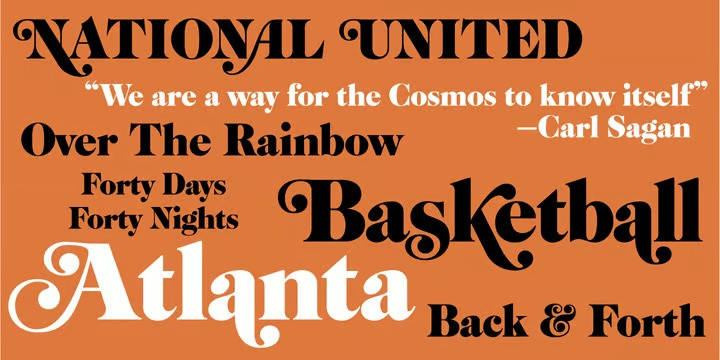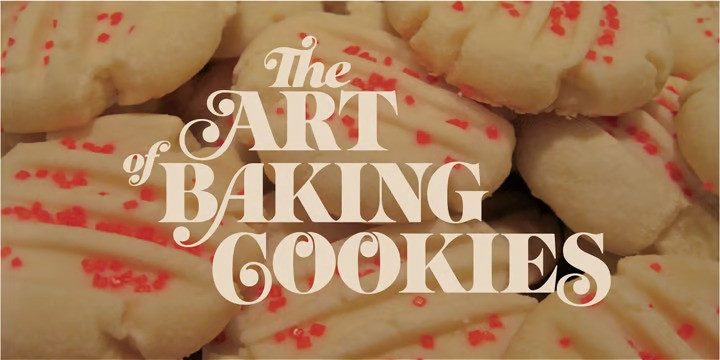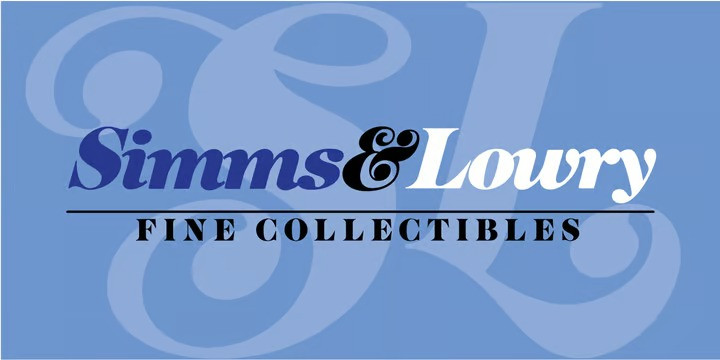
Cabernet JF Font
Looking for a unique, stylish, and fun font for your next project? Cabernet JF Serif Font Family was designed by Jason Anthony Walcott and published by Jukebox Collection. Cabernet JF contains 2 styles and family package options.